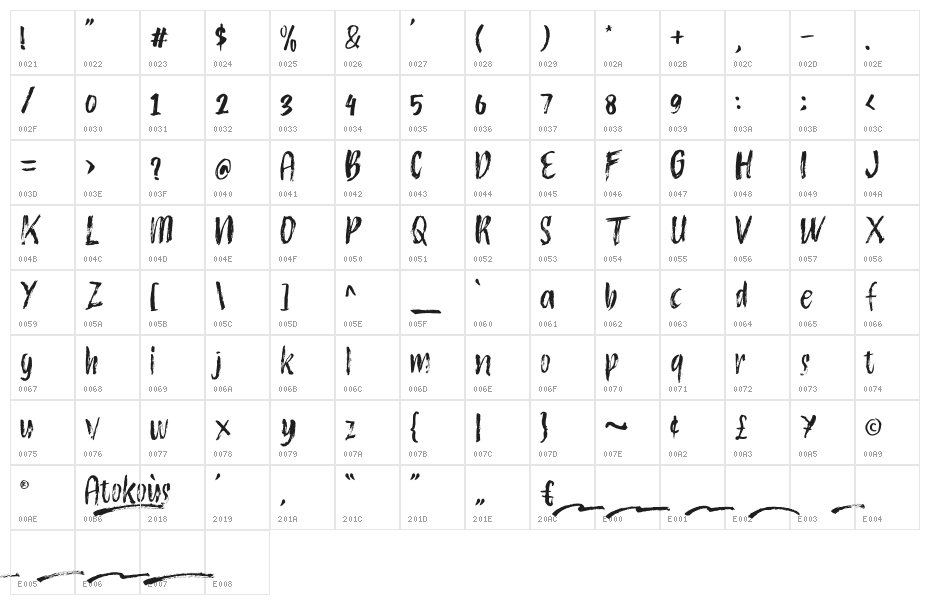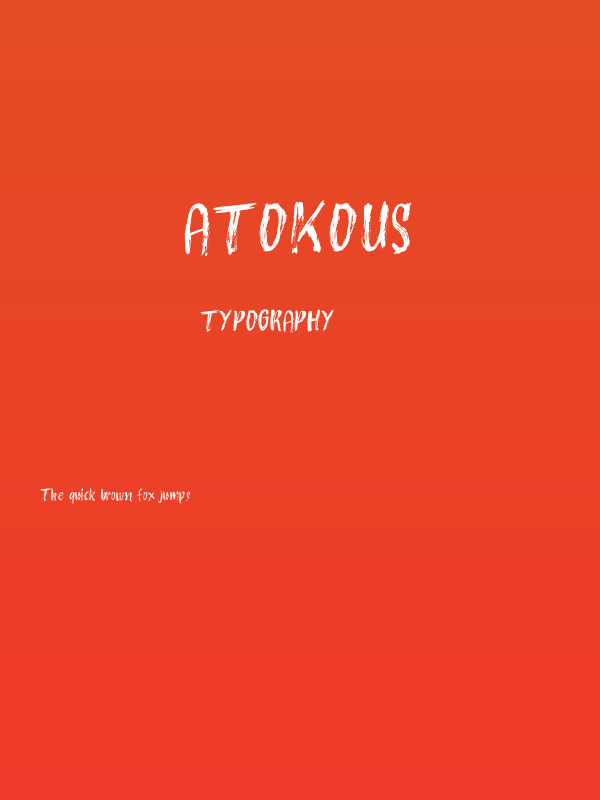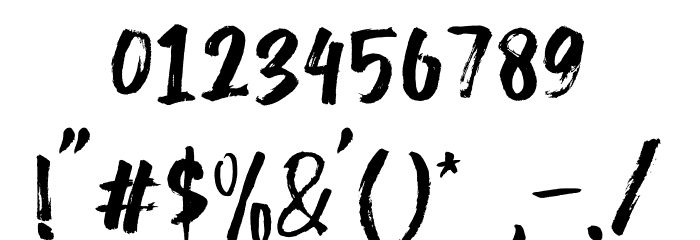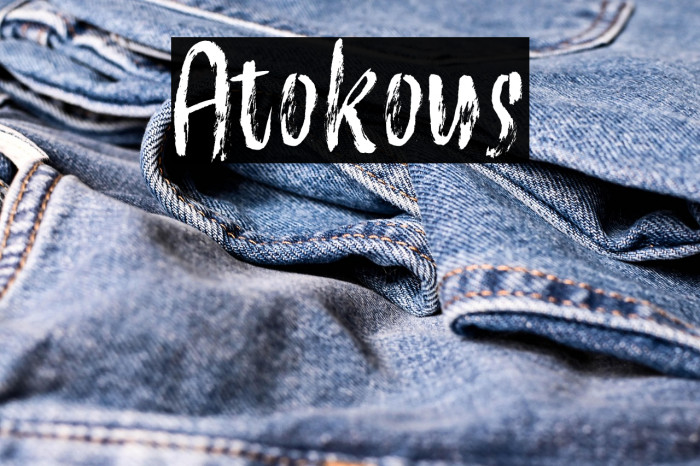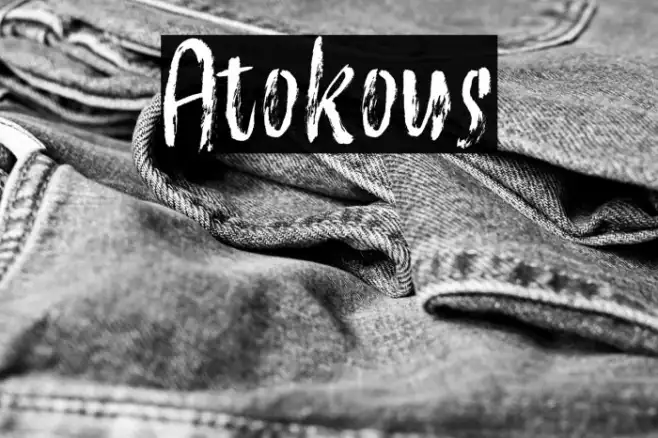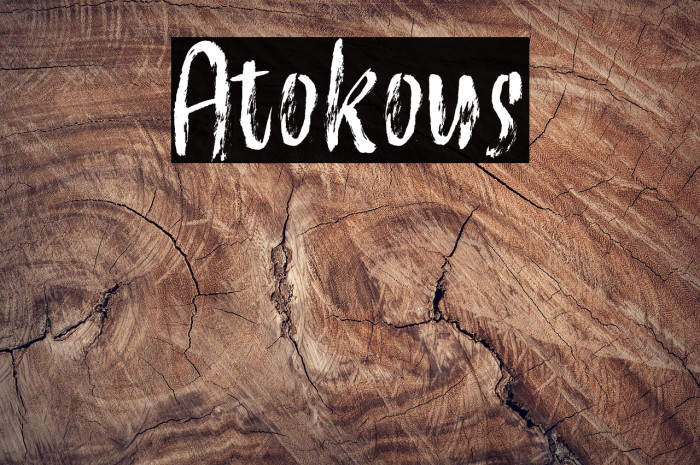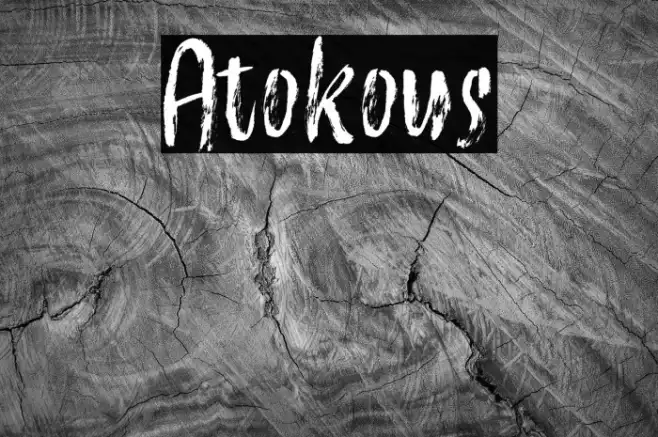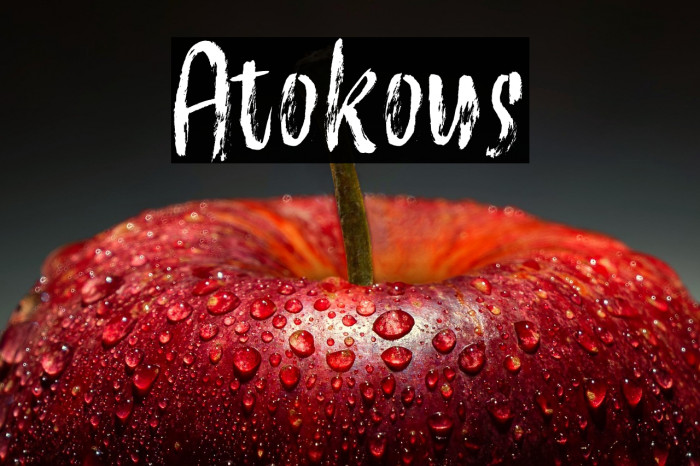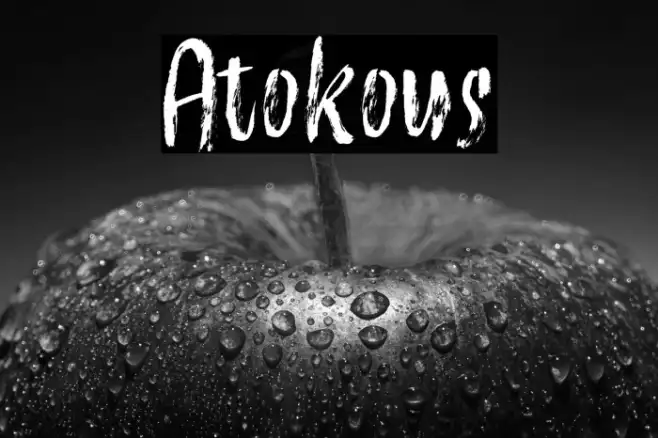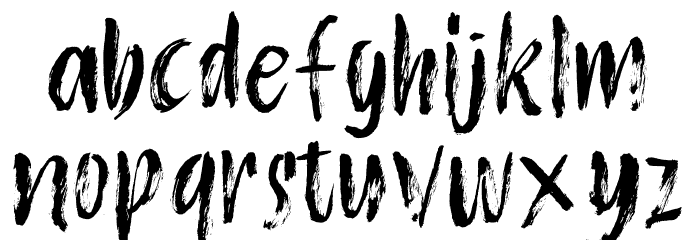
Atokous Font
Atokous Description
This font features a bold, expressive brush style that conveys a sense of energy and dynamism. The strokes are uneven and textured, giving it a hand-painted appearance. The uppercase and lowercase letters maintain a consistent style, with some characters exhibiting dramatic flourishes and others appearing more restrained. The numbers and special characters follow the same aesthetic, ensuring a cohesive look across all elements. This font's raw and artistic feel makes it ideal for projects that require a personal touch or a creative edge.
| Proposed Projects | Ideal for branding, posters, album covers, and creative projects that require a dynamic and artistic touch. |